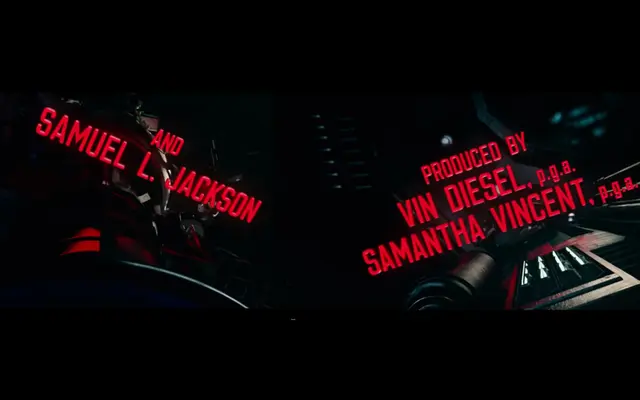
Clarke
The Designers Foundry · Dominik Krotscheck
A condensed sans-serif with rounded corners by Dominik Krotscheck, offered in four weights with matching obliques and a set of OpenType stylistic alternates.
Eight styles span Light through Black in both upright and oblique cuts, all sharing the same condensed proportions and softened corners that give the family a compact but approachable character. OpenType features include six stylistic sets offering alternate forms for a, g, k, t, J and Q, plus stylistic ligatures for added personality. Language support covers a broad range of Latin-based scripts across Europe and Africa.
A condensed sans-serif with rounded corners and oblique rather than true italic styles, placing it in the grotesque tradition with a soft, geometric touch.